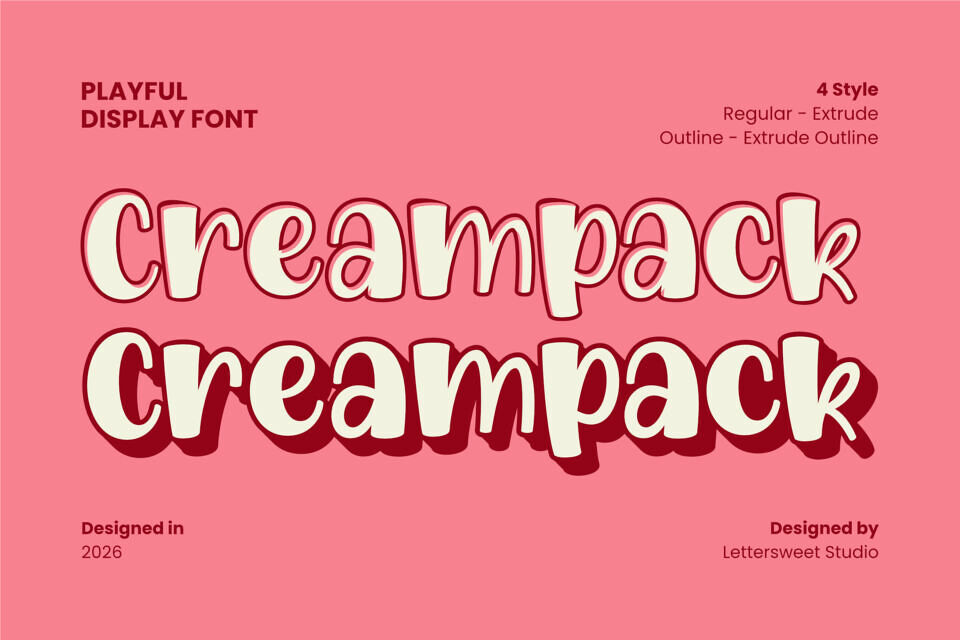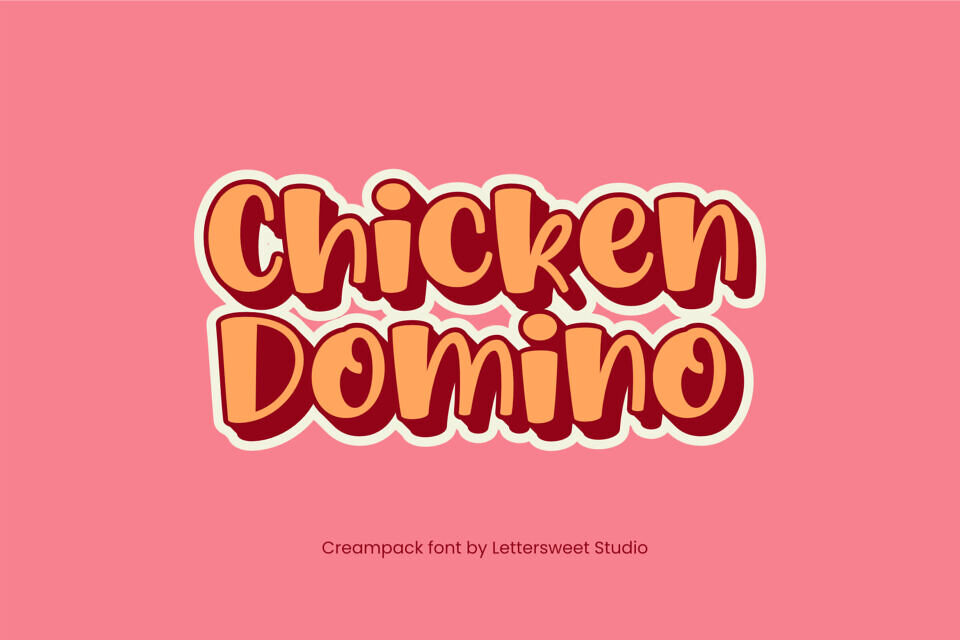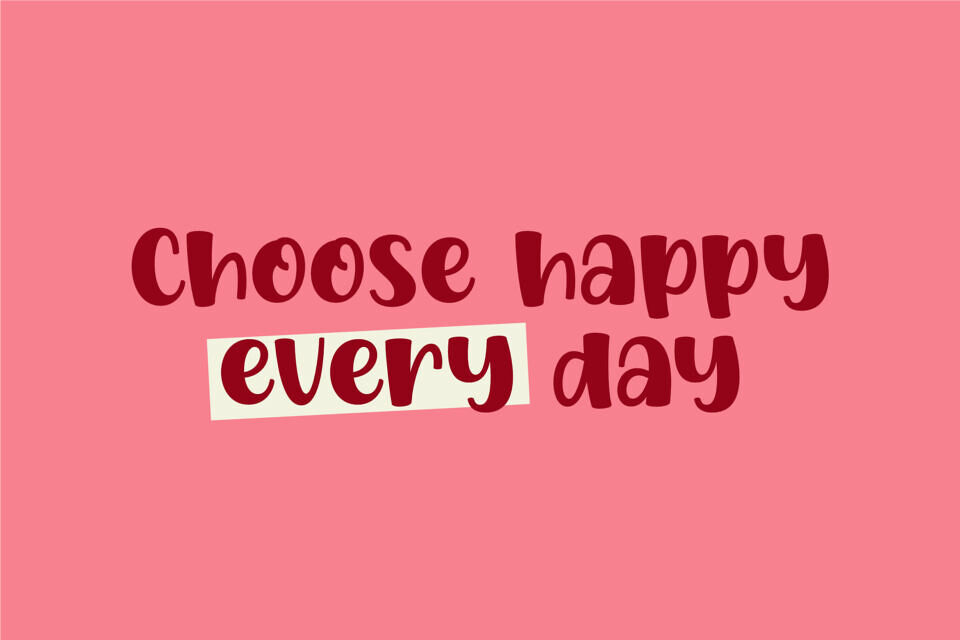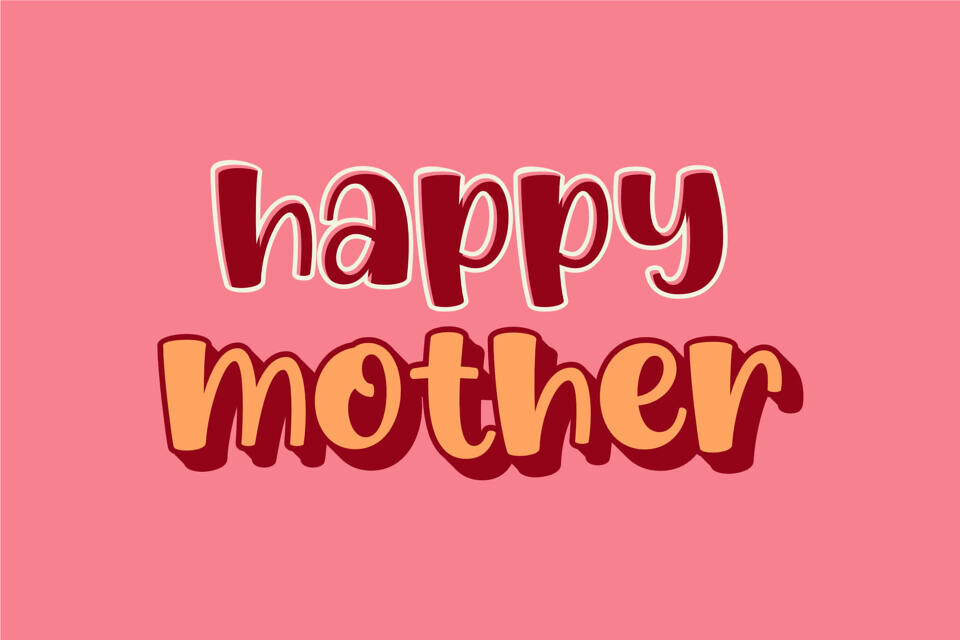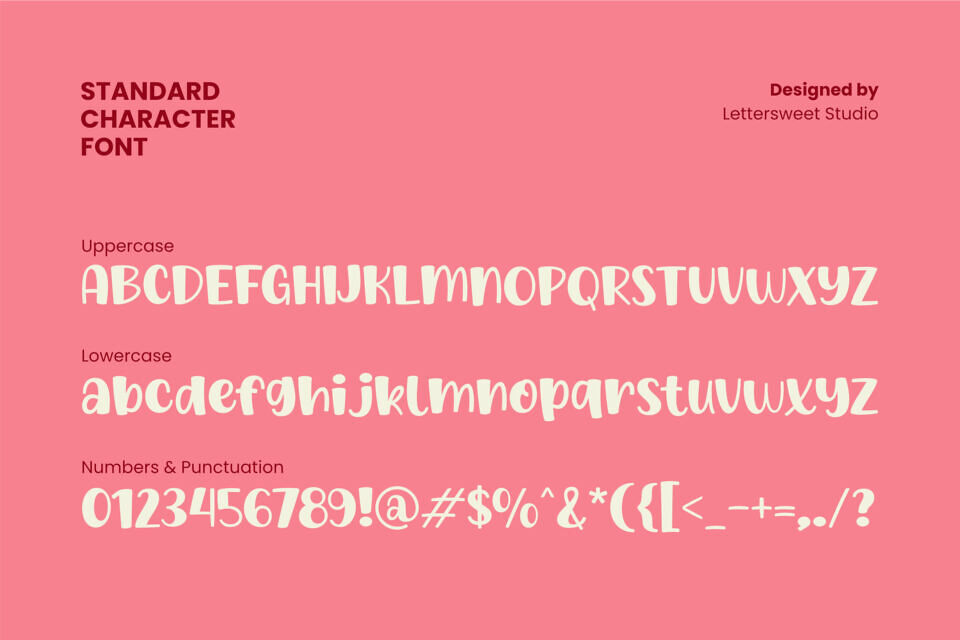
Creampack is a playful and bold display font designed to bring fun, warmth, and retro charm into your designs. With its rounded shapes and soft curves, Creampack is perfect for projects that need a friendly, cheerful, and eye-catching look.
This font comes with 4 styles — Regular, Outline, Extrude, and Extrude Outline — giving you flexibility to create depth, dimension, and standout typography effortlessly. Whether you’re designing for kids, food branding, social media posts, or cheerful packaging, Creampack delivers immediate visual impact.